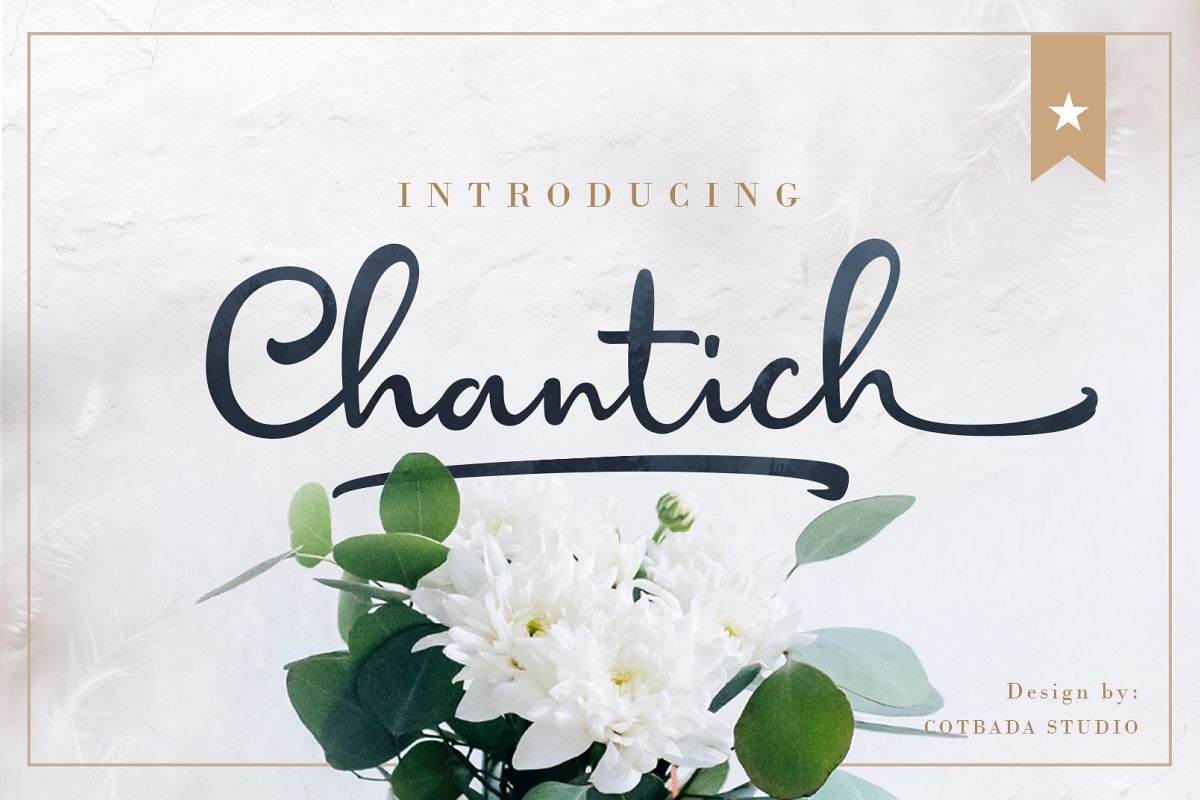
Chantich Script Font
Chantich Script Font  is a unique, cool and modern handwritten font. It's hand look style makes it perfect for use in all your design projects be it logos, labels, packaging design, blog headlines.